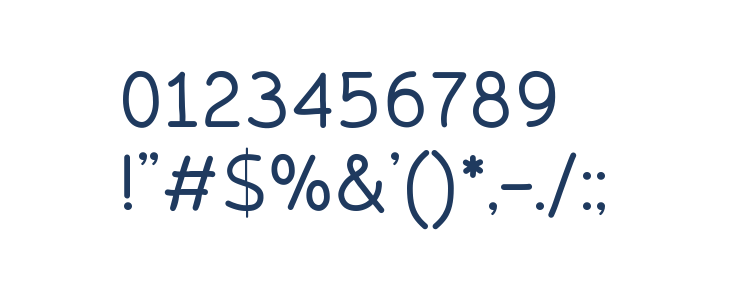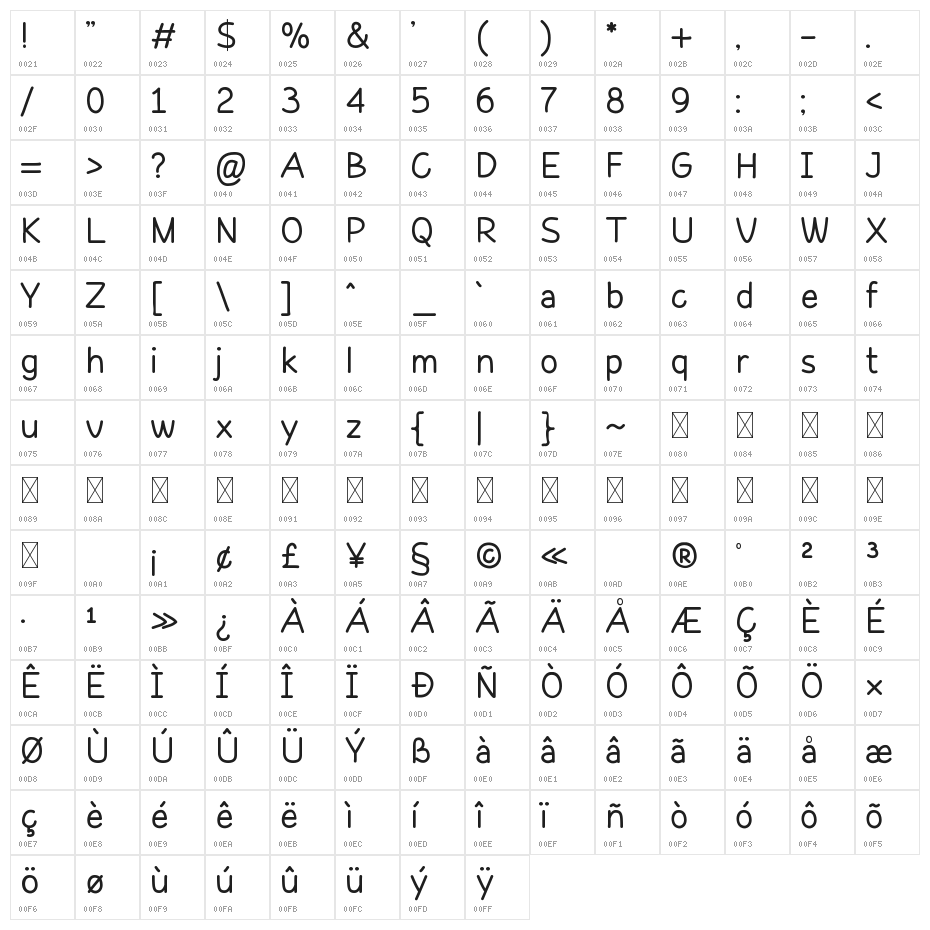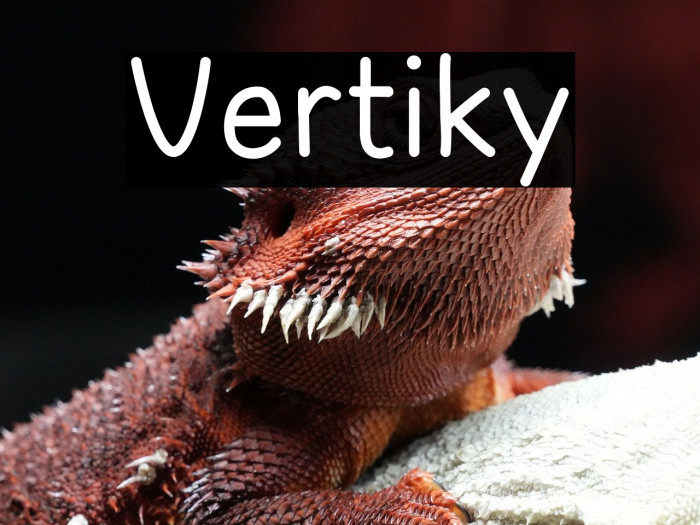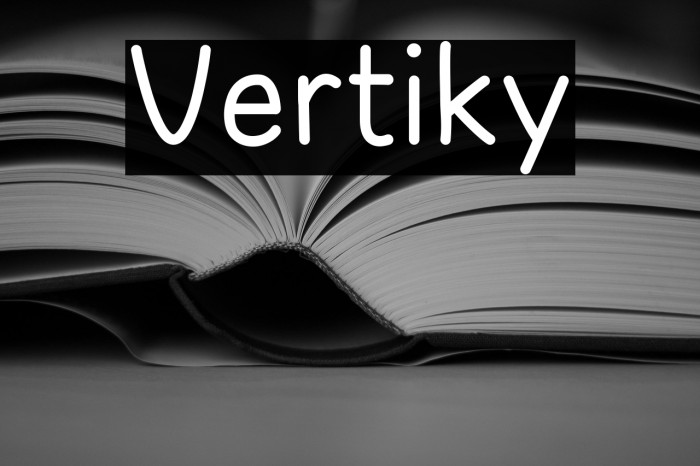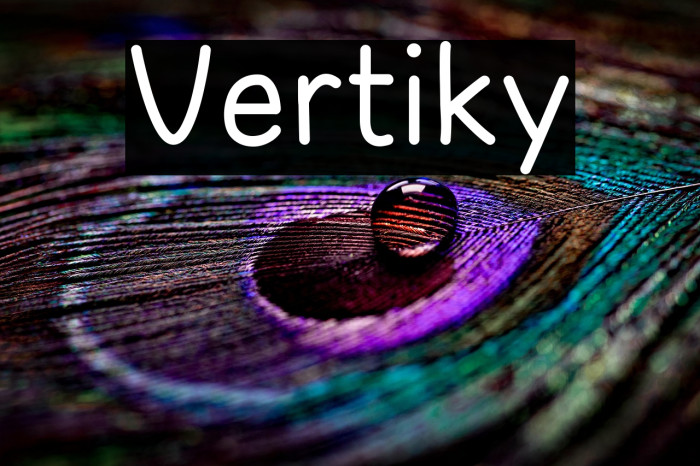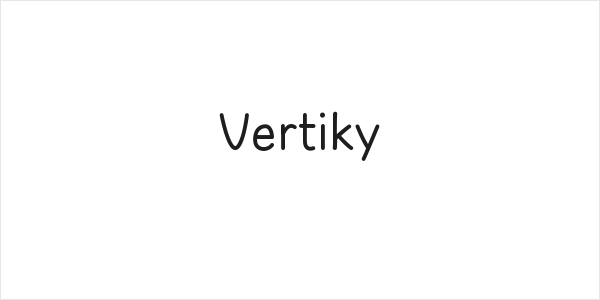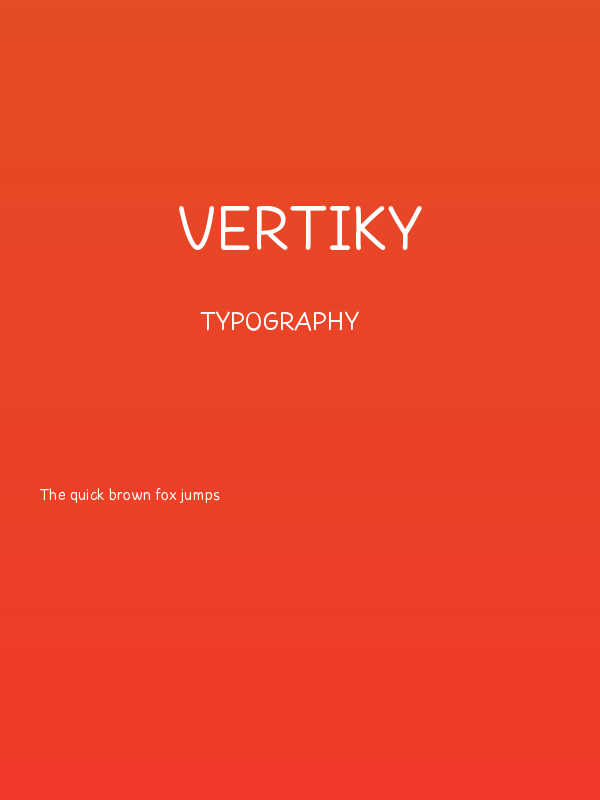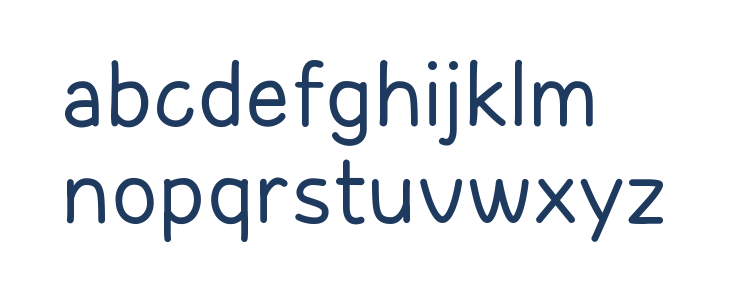
Vertiky Font
Vertiky Description
This font features a clean and modern sans-serif design with rounded edges, giving it a friendly and approachable appearance. The characters are evenly spaced, contributing to its readability. The uppercase and lowercase letters maintain a consistent style, with smooth curves and a uniform stroke width. The numerals are clear and distinct, matching the overall aesthetic of the alphabet. Special characters are well-integrated, ensuring versatility in various applications. The simplicity and clarity of the design make it suitable for both digital and print media.
| Use Case | Headlines, Body text, Logos |
| Proposed Projects | Ideal for branding, web design, user interfaces, children's books, and educational materials. |